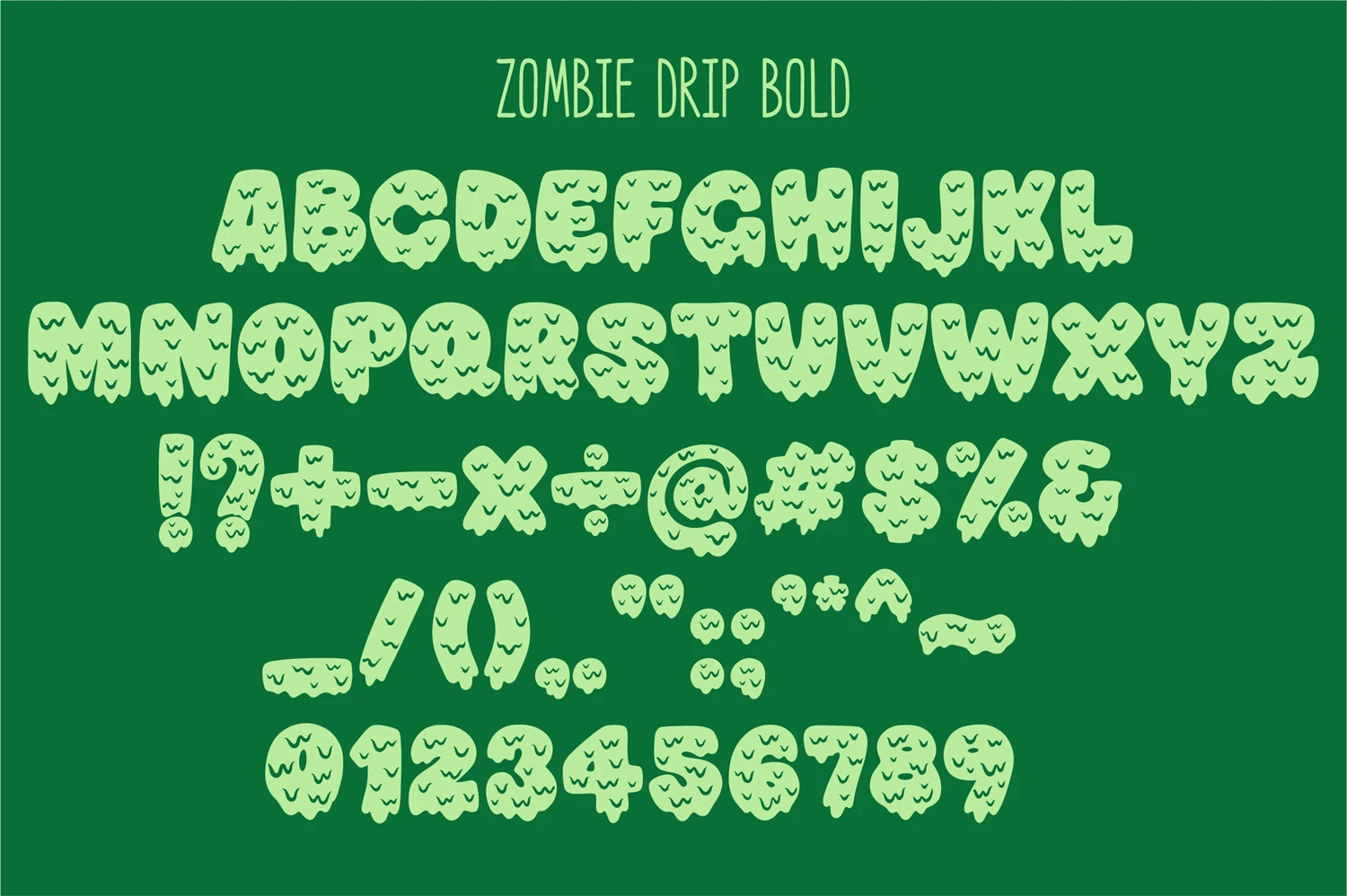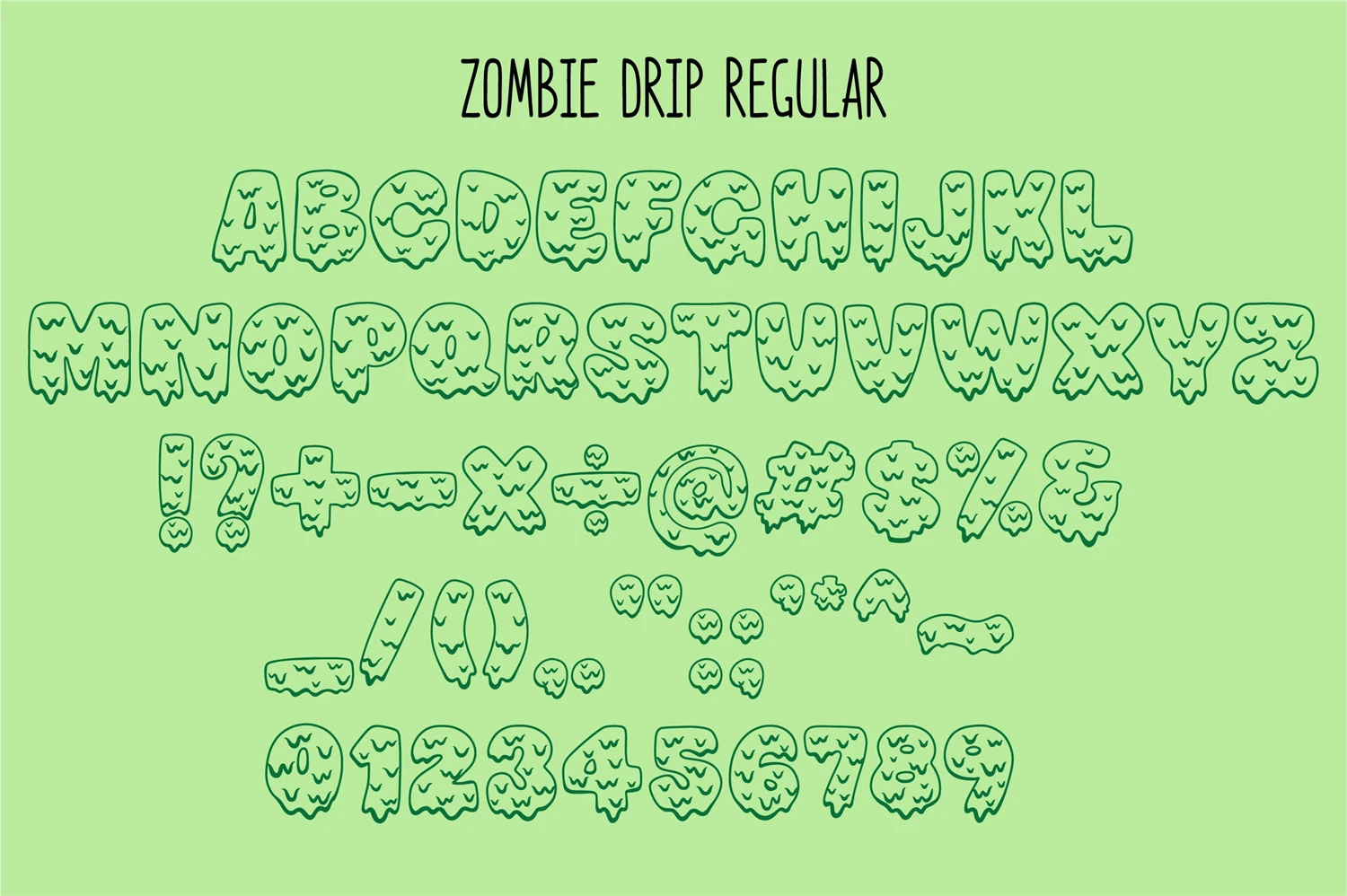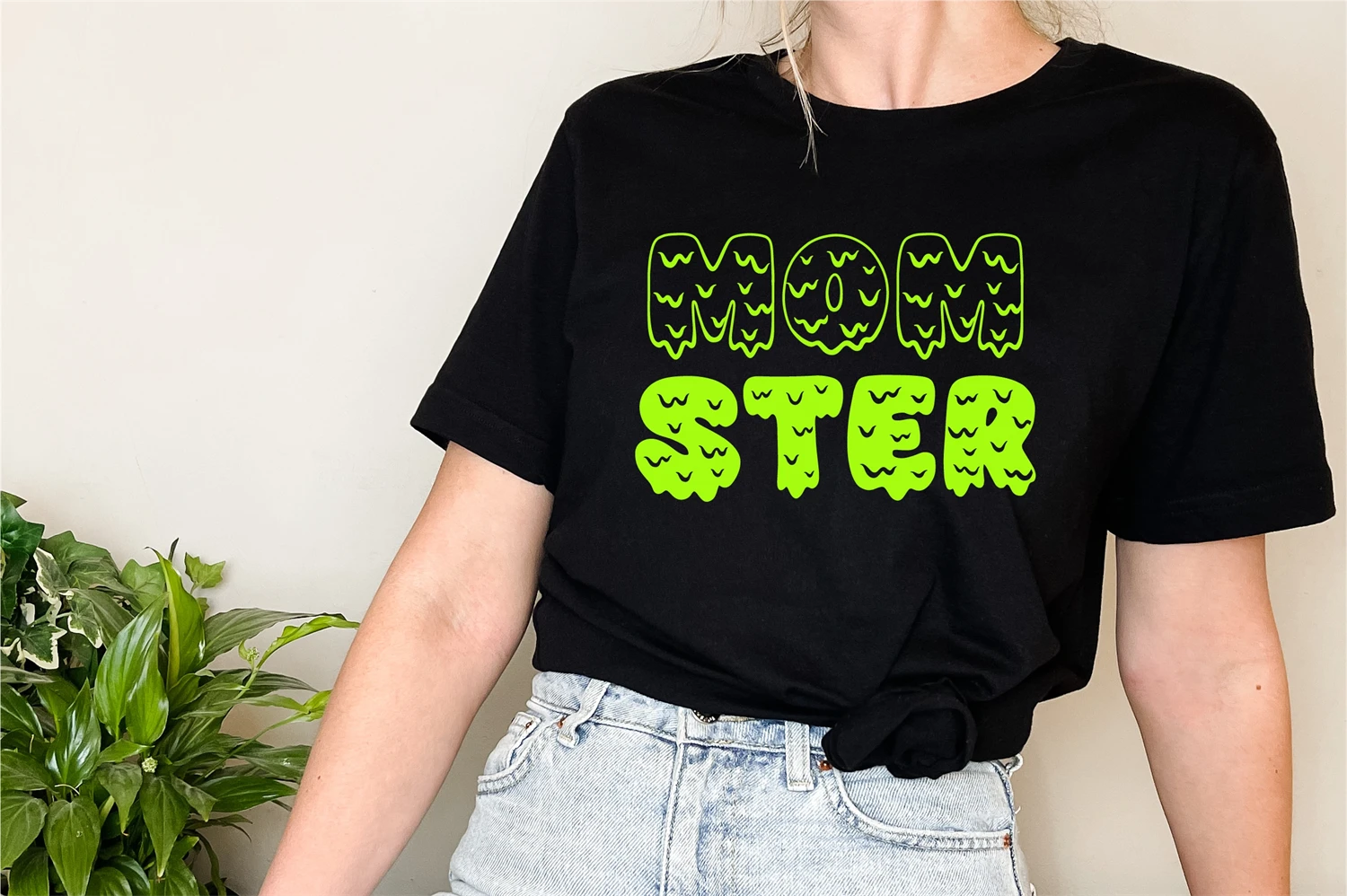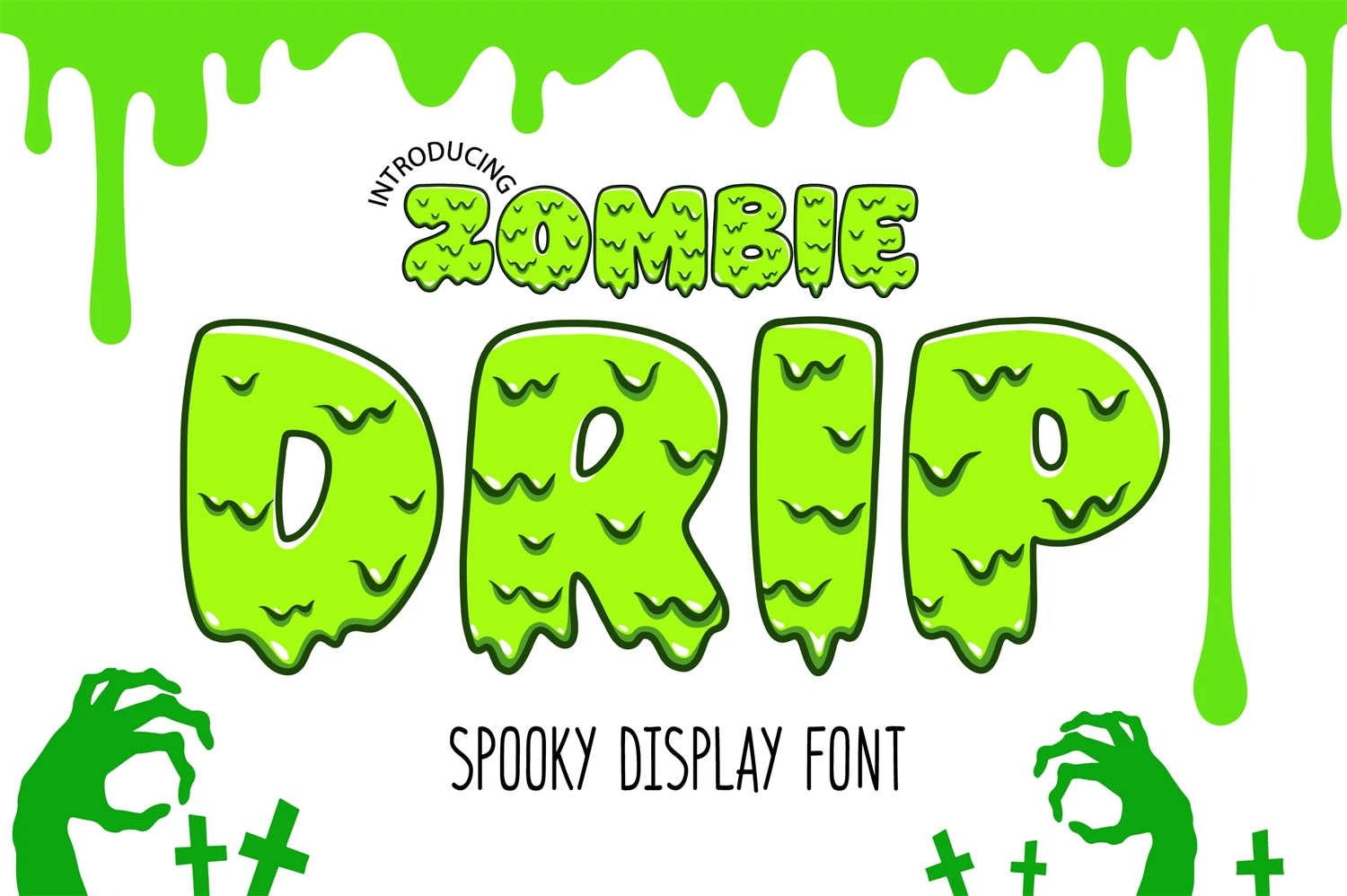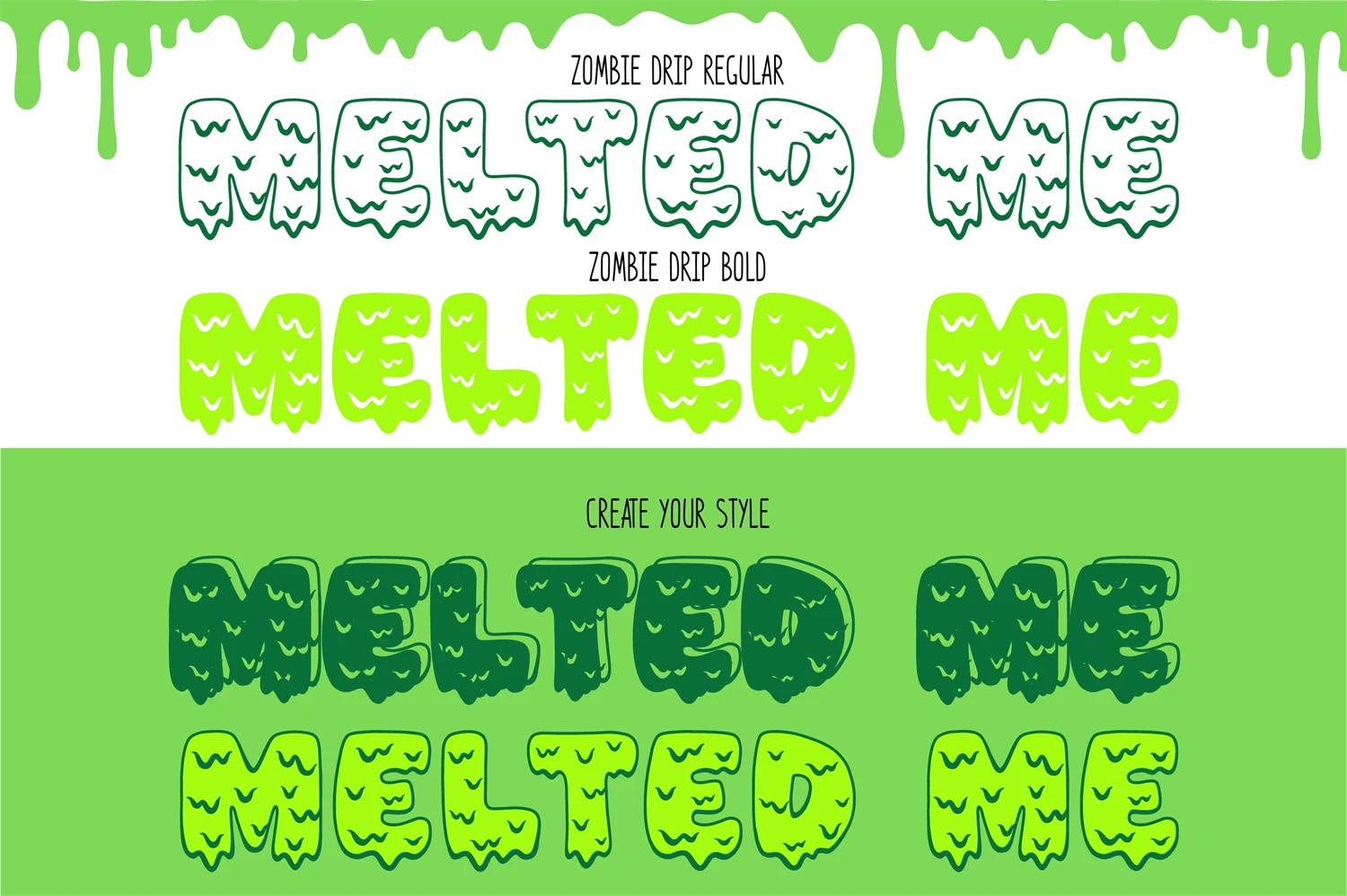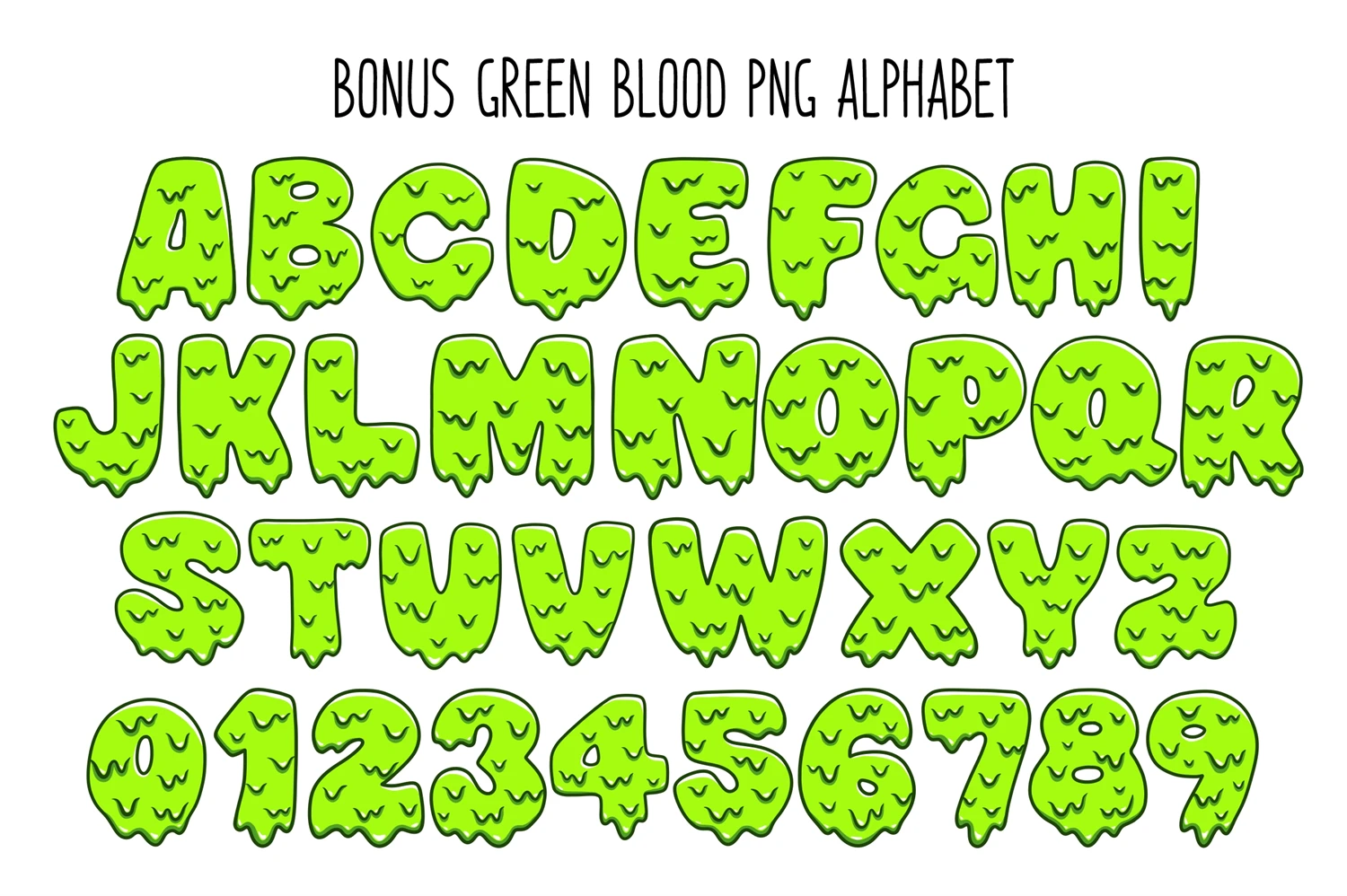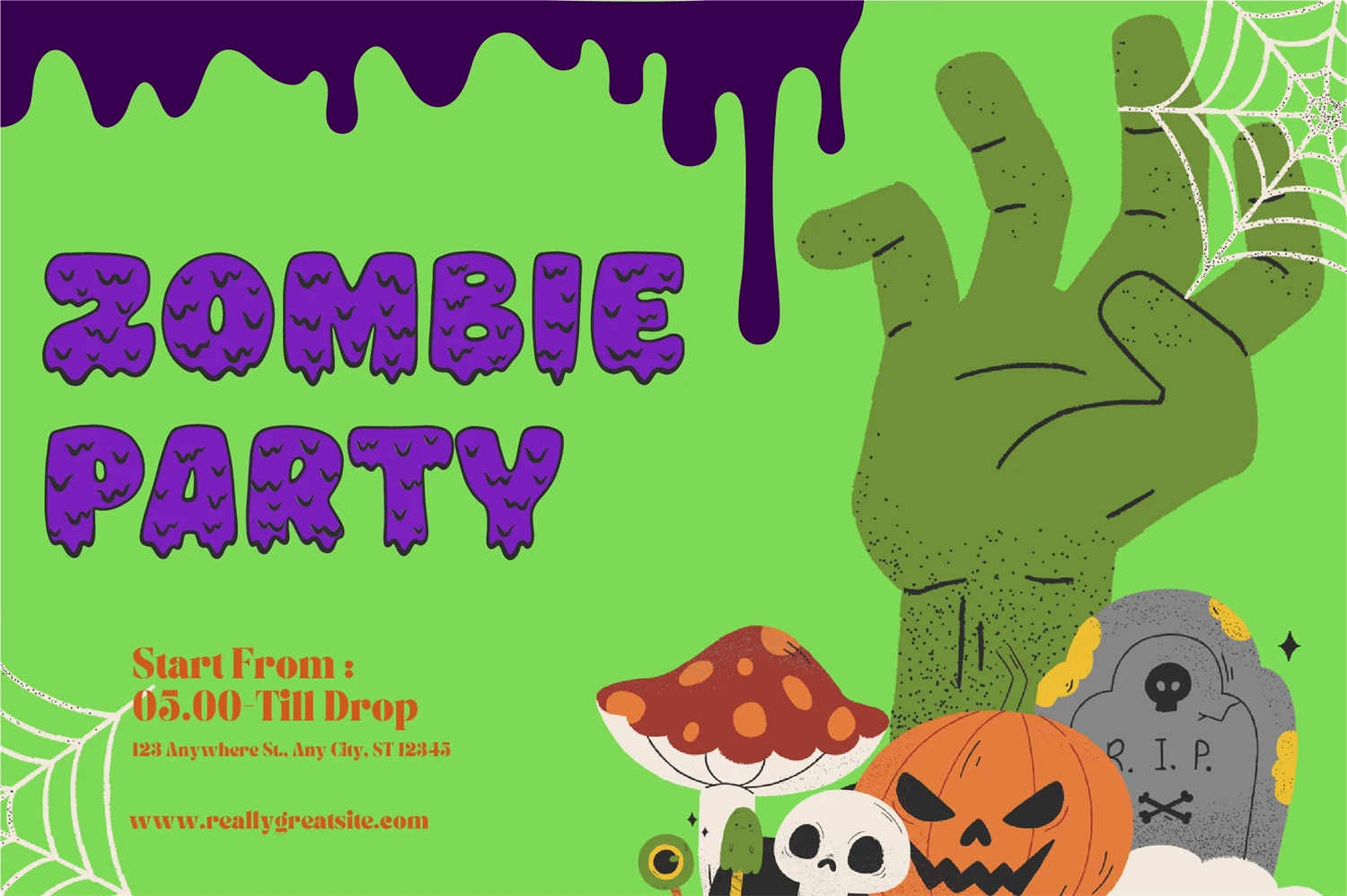
Zombie Drip is family font with bold and line version. And bonus PNG perfect melting glaze effect. Procreate Fonts, Halloween Fonts, Craft Fonts, Silhouette Fonts, Crafting Fonts, Cricut Fonts